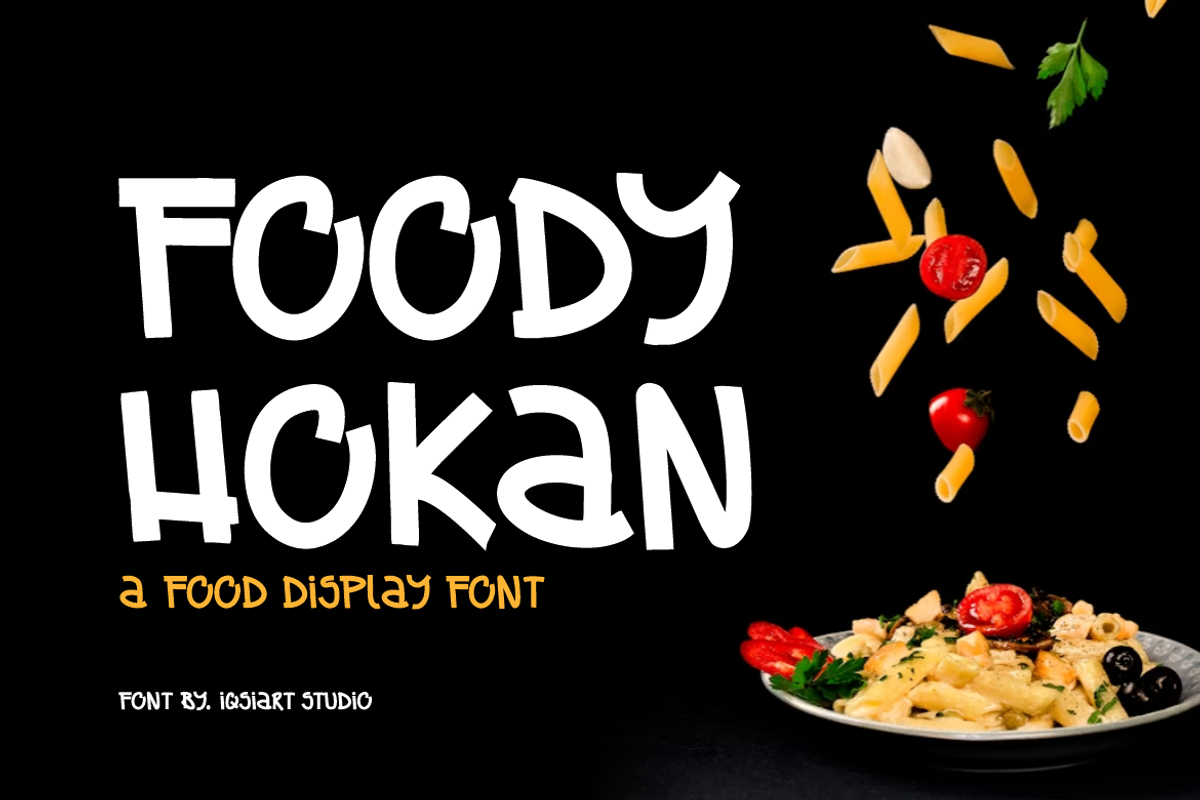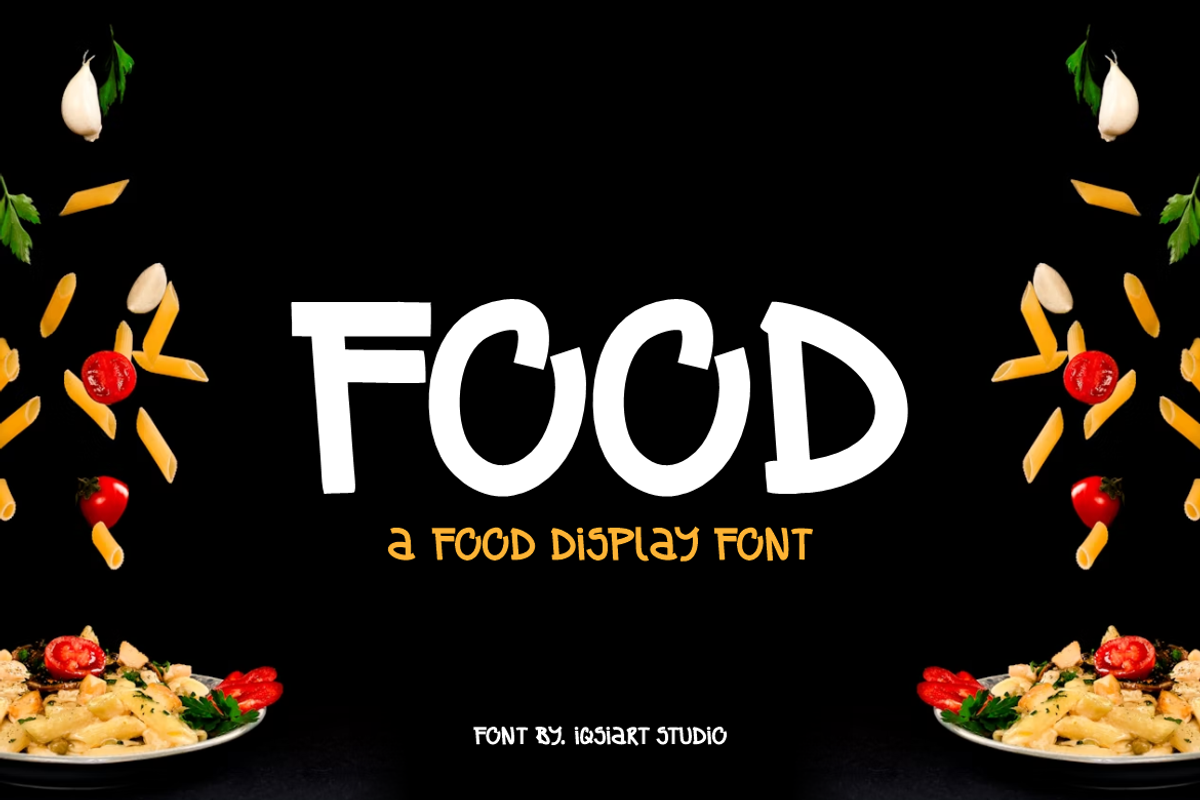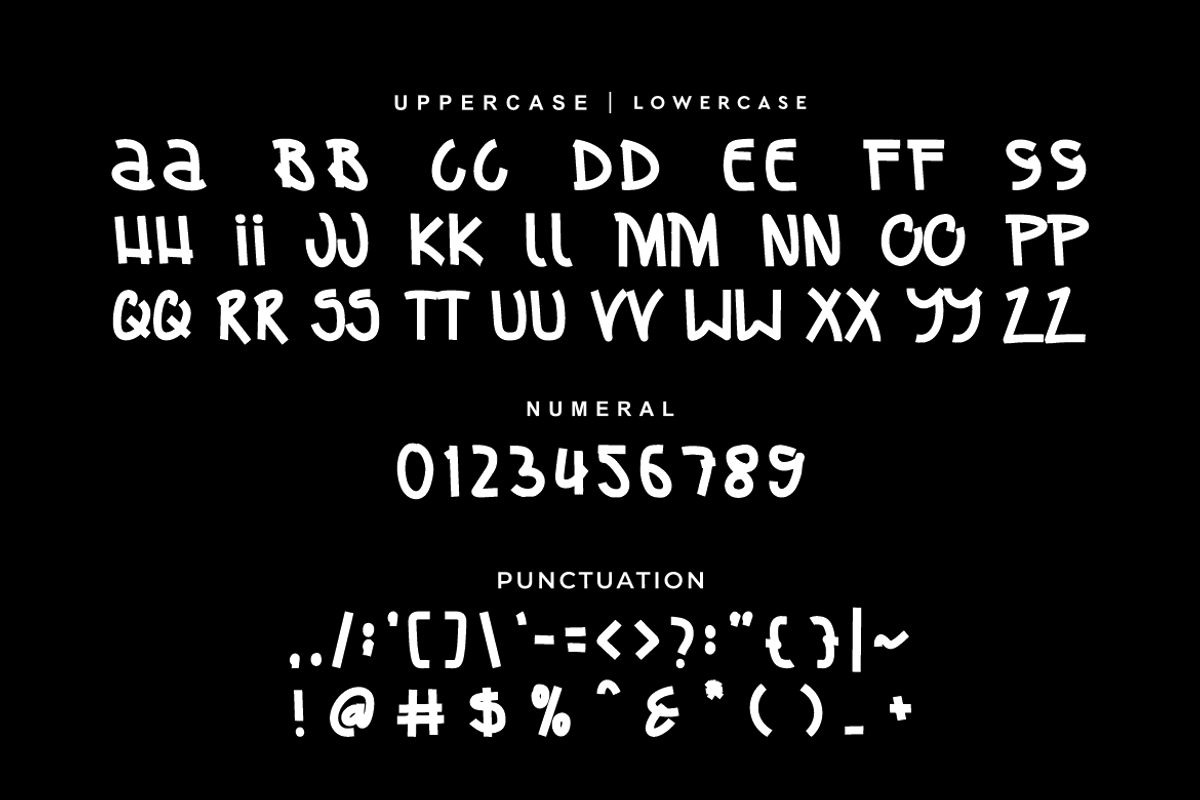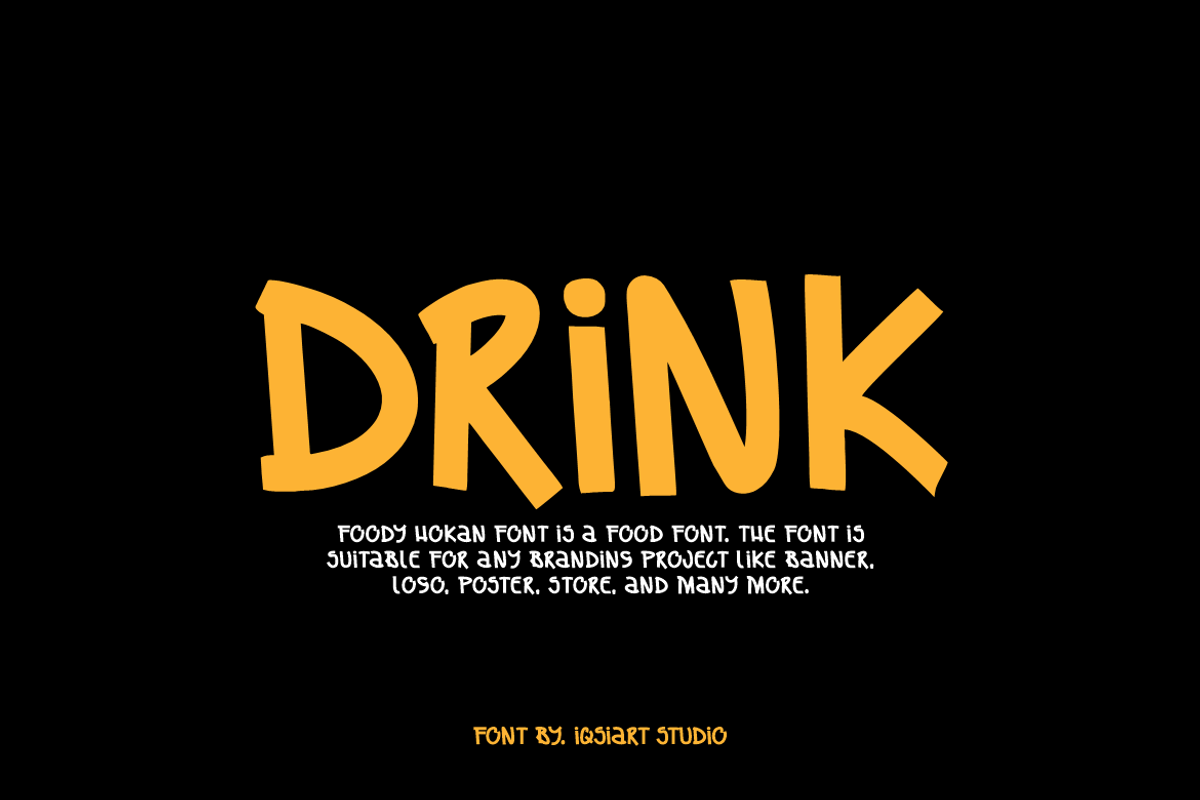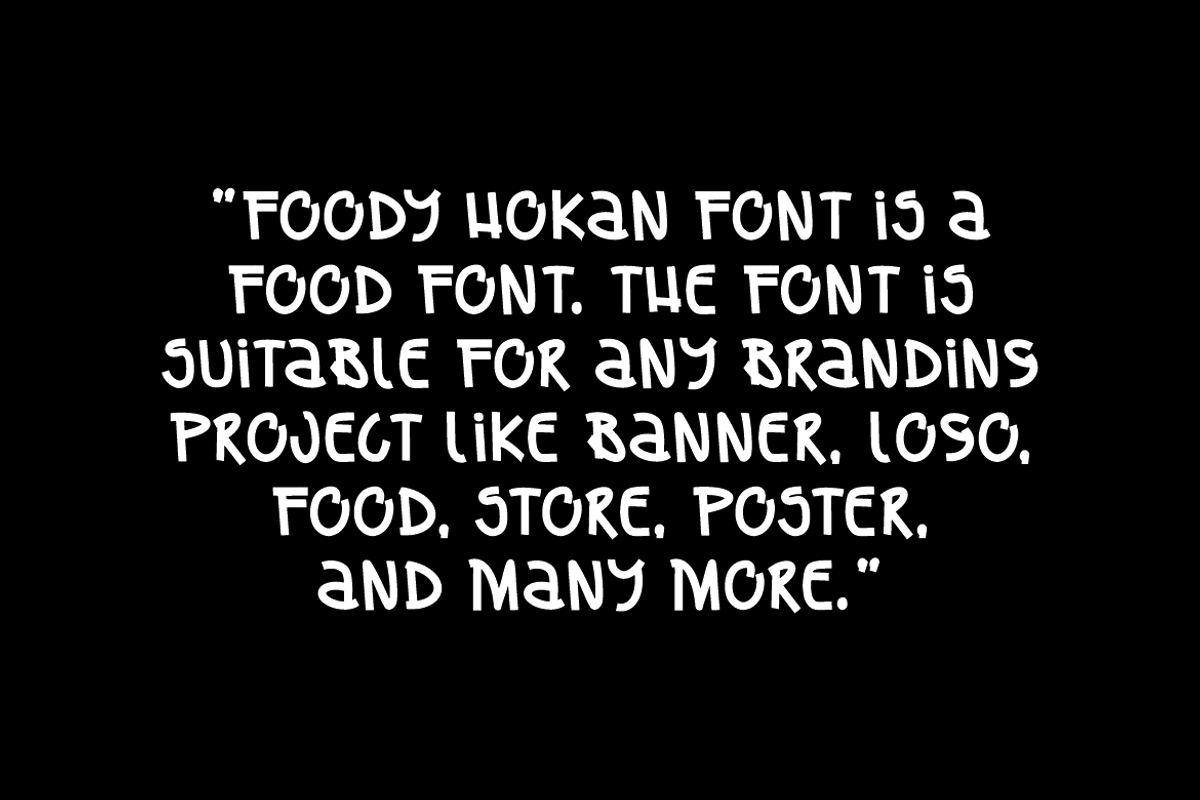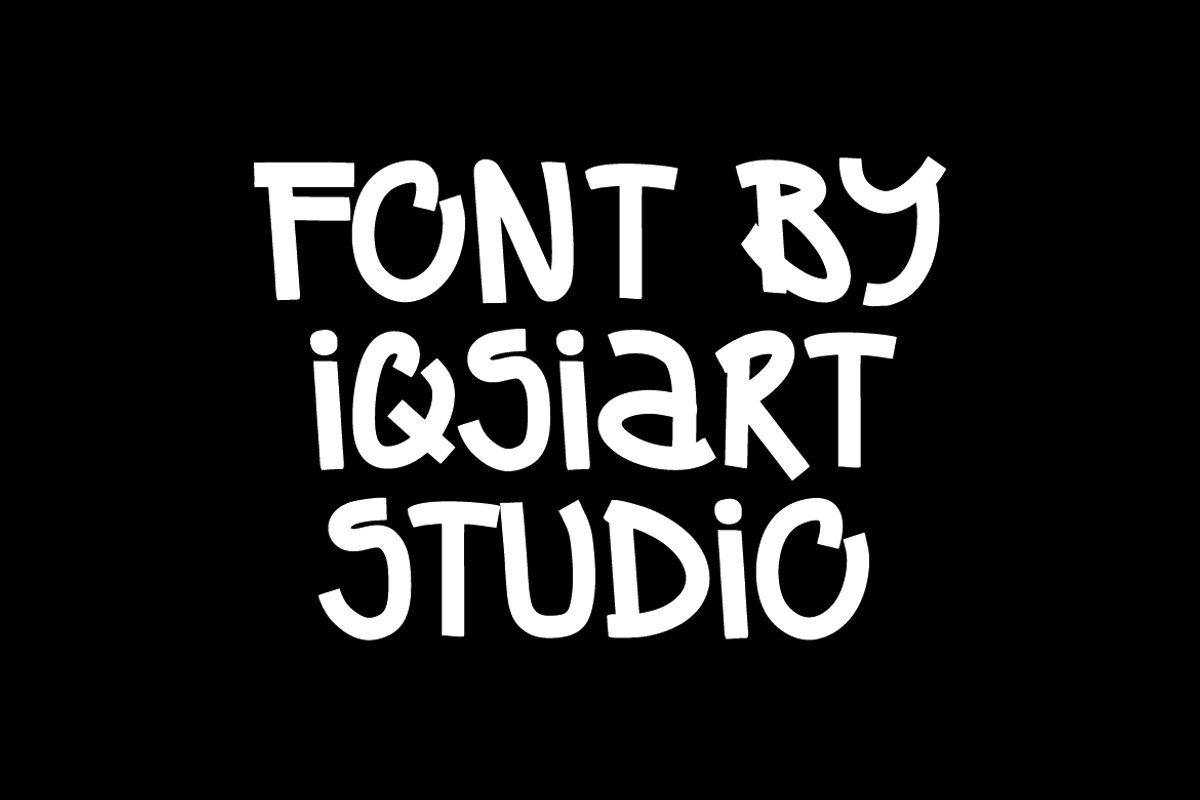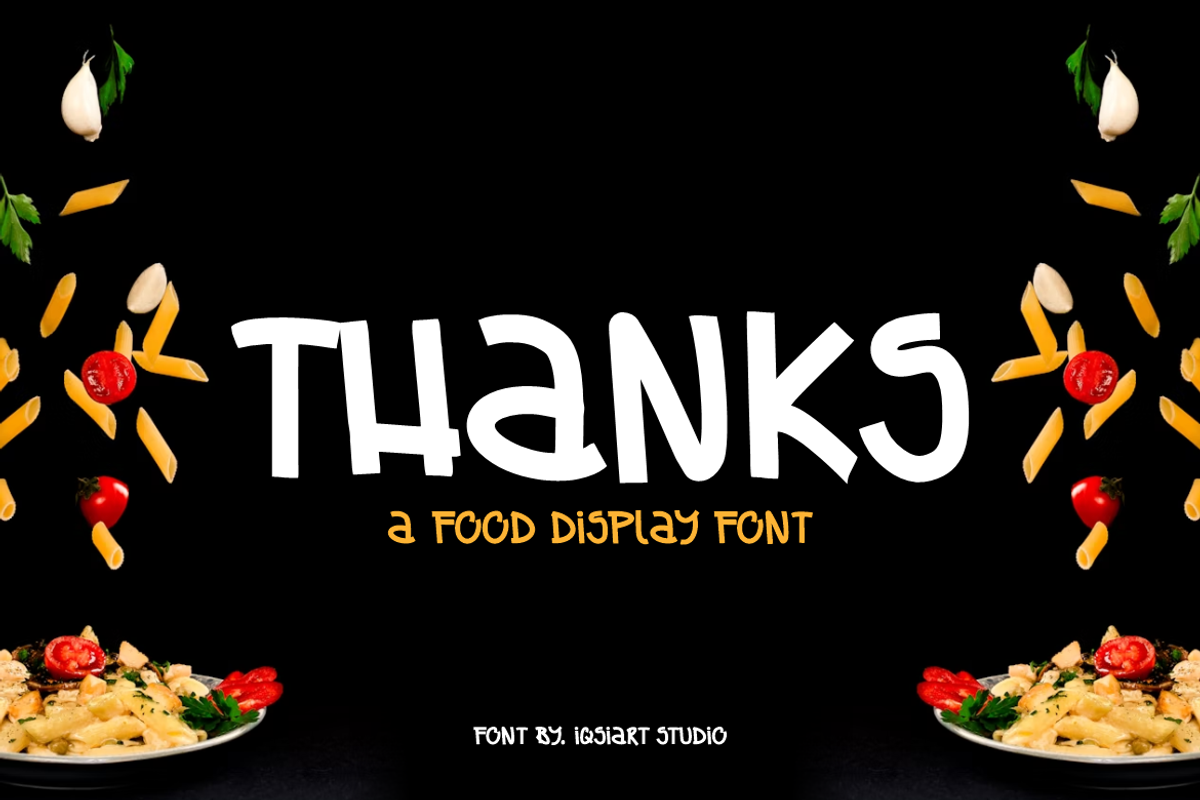
Foody Hokan - Food Font
Foody Hokan Font is a best and authentic display font. This font can be used for your various needs. We provide various themes and font styles. visit our profile to get a wide variety of themes and different font styles you need.